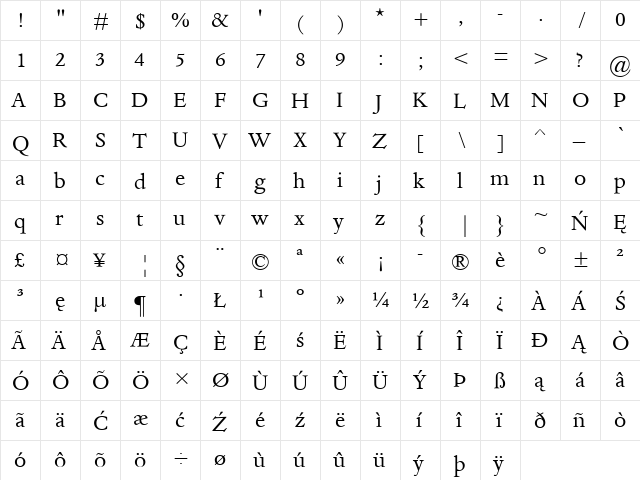
Dante Regular
Design Context for Dante Typeface
Dante offers clean, dependable letterforms without strong stylistic allegiance, making it a practical choice for designers who need flexibility.